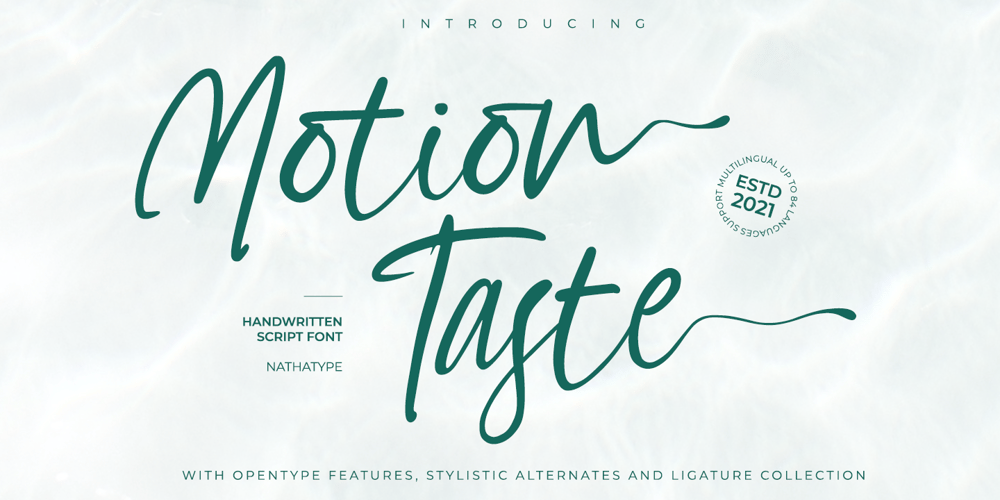
Motion Taste Font Family was designed by Donis Miftahudin and published by Nathatype. Motion Taste contains 1 styles and family package options. Looking for a font that will make your branding stand out? Do you sometimes have an appetite for a bit more wholesome typography? Looking for a fabulous, stylish, and adventure font? We’ve got what you want.Motion Taste-A Handwritten FontMotion Taste is designed elegantly to be easily meld inside your designs. Inspired by the recent trend to brings charming curves and satisfying looks. Discover the beauty in your own imagination while this font gives you a quick kickstart to what it can be. Well suited to invitation, poster designs, branding, logos, and many more.Our font always includes Multilingual Support to make your branding reach a global audience. Inspire your audience, clients, or guests with this beautiful, statement font. Features: Ligatures Stylistic Sets PUA Encoded Numerals and Punctuation Thank you for downloading premium fonts from Nathatype